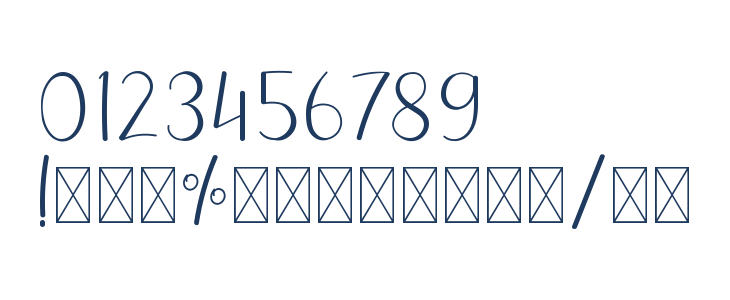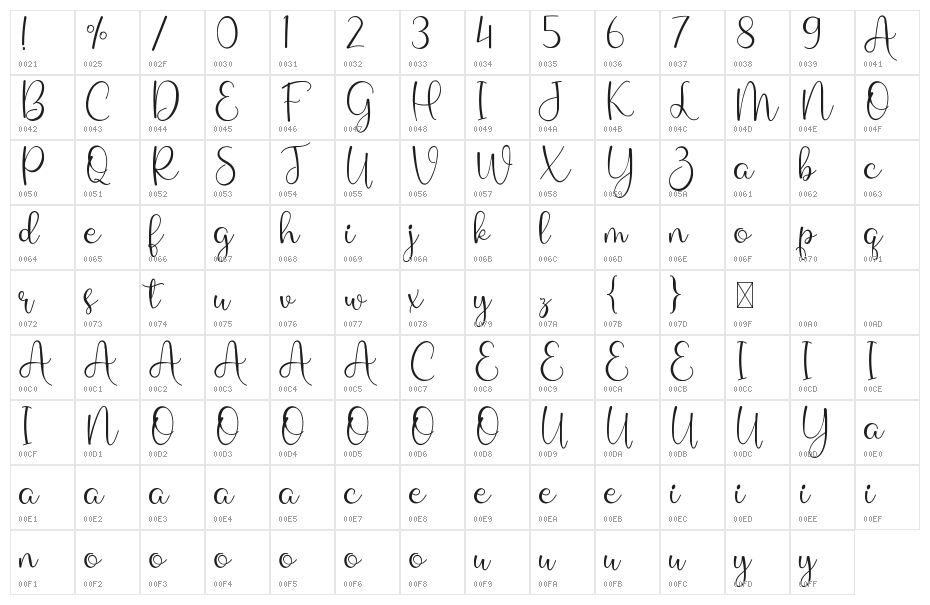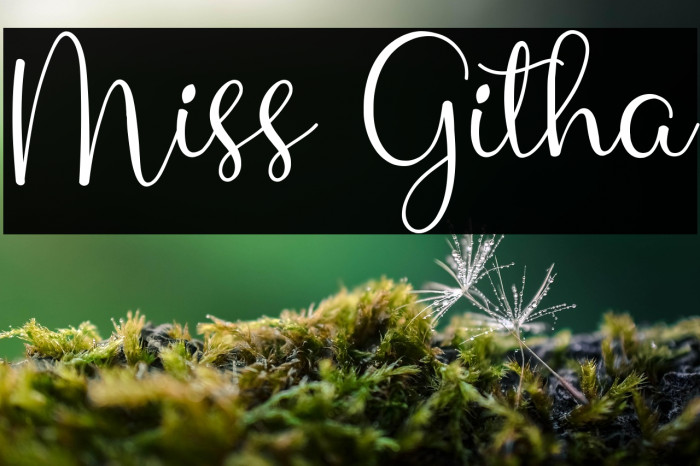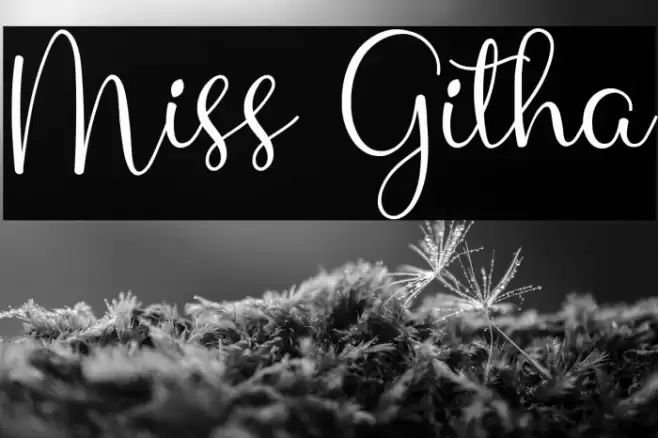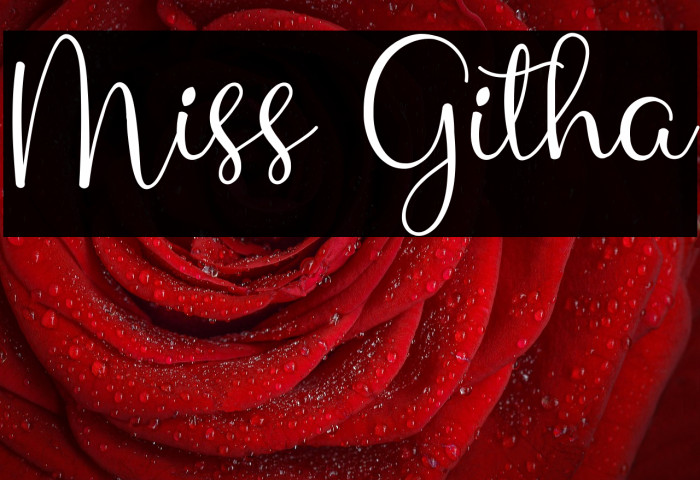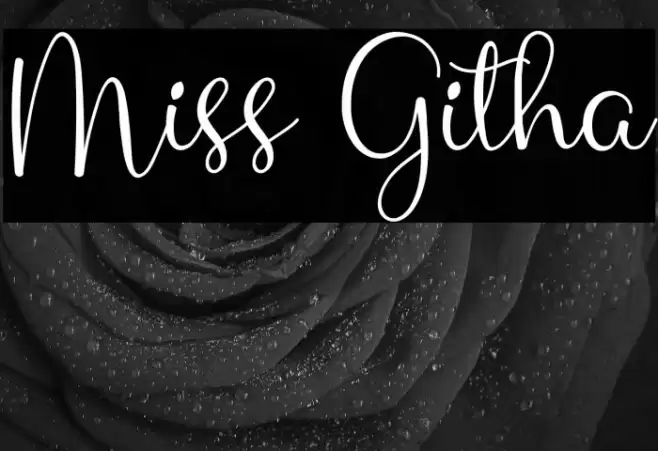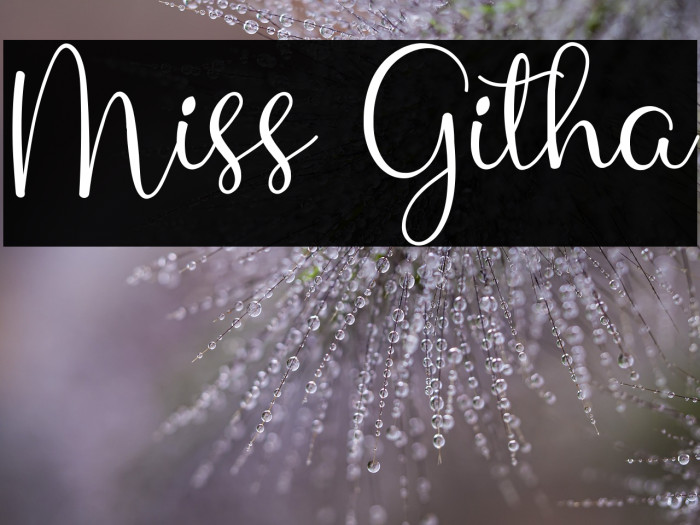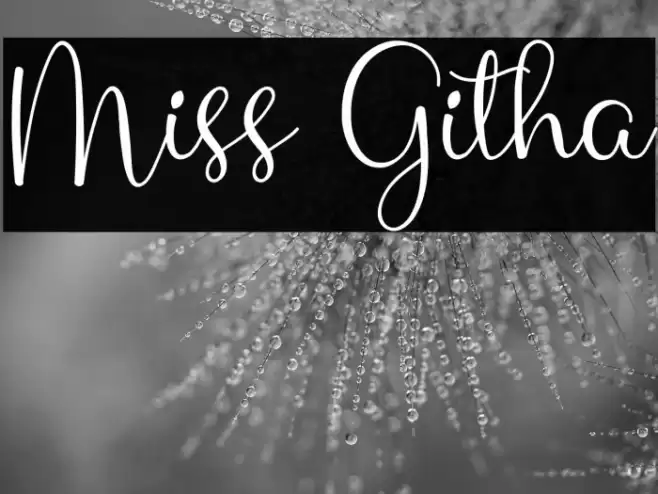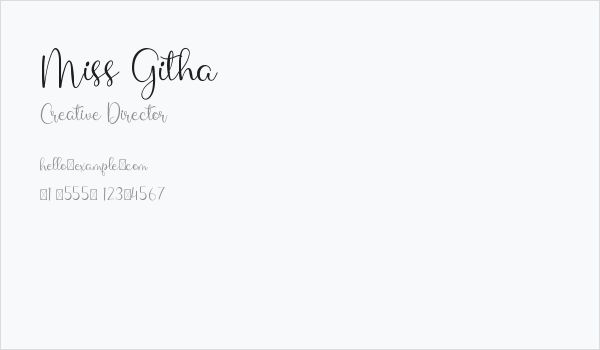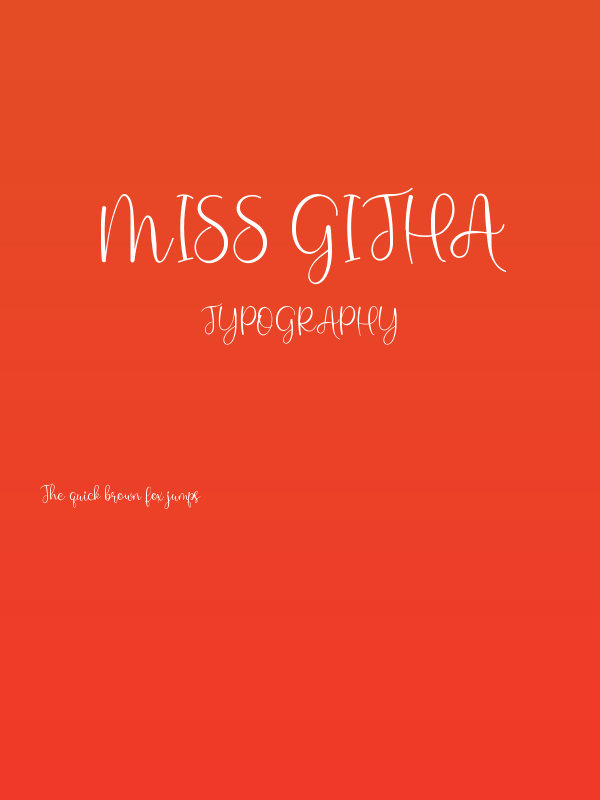
This font exudes a playful and elegant charm, characterized by its flowing, cursive script style. The uppercase letters are tall and slender, with graceful loops and swirls that add a touch of sophistication. The lowercase letters maintain a consistent flow, with smooth connections between characters, enhancing readability while retaining a handwritten feel. The numerals are clear and distinct, complementing the overall aesthetic. Special characters are creatively integrated, maintaining the font's whimsical nature. This font is perfect for projects that require a personal touch, such as invitations, greeting cards, and branding materials.
Use CaseLogos, Headlines, Invitations
Proposed ProjectsIdeal for invitations, greeting cards, branding, and personal projects.